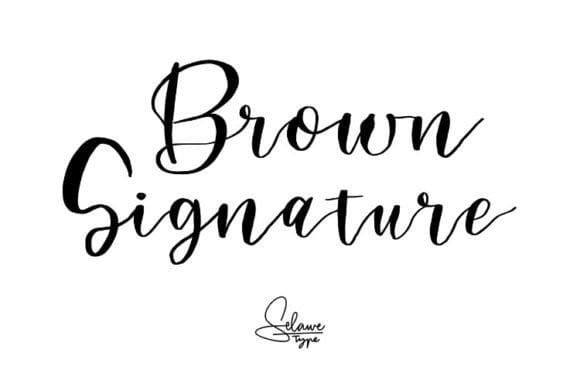
Brown Signature Font
Brown Signature Font, a sophisticated handwritten font that adds a touch of elegance to your projects. With its flowing strokes and personalized feel, this signature font brings a sense of refinement to your designs.
Perfect for branding, invitations, and other creative endeavors, Brown Signature effortlessly blends style and simplicity, making your text truly distinctive.